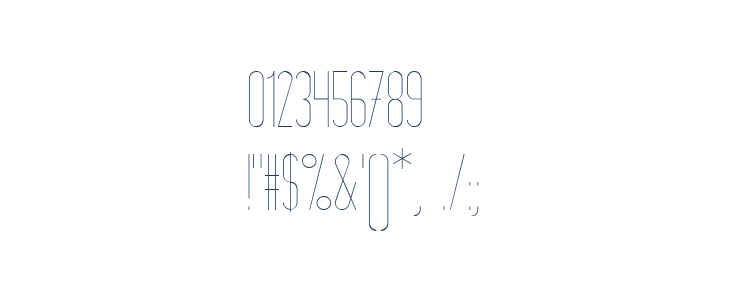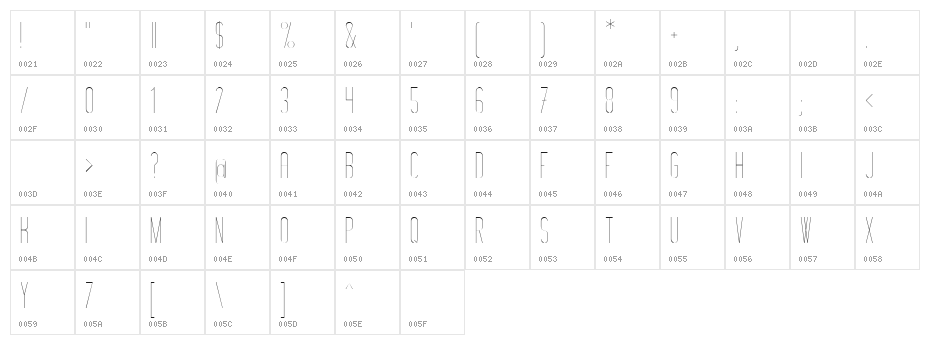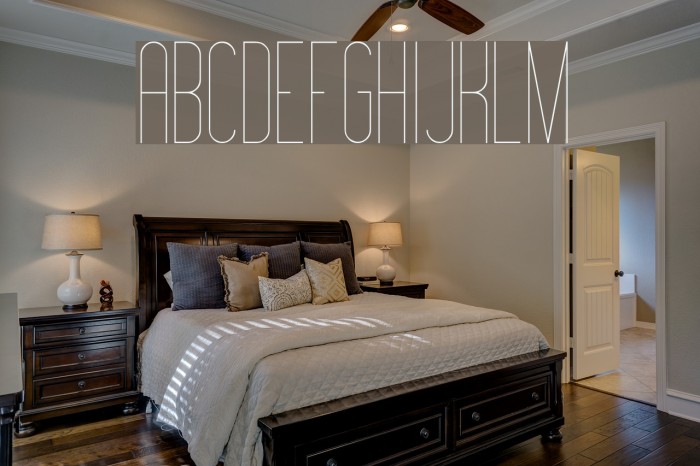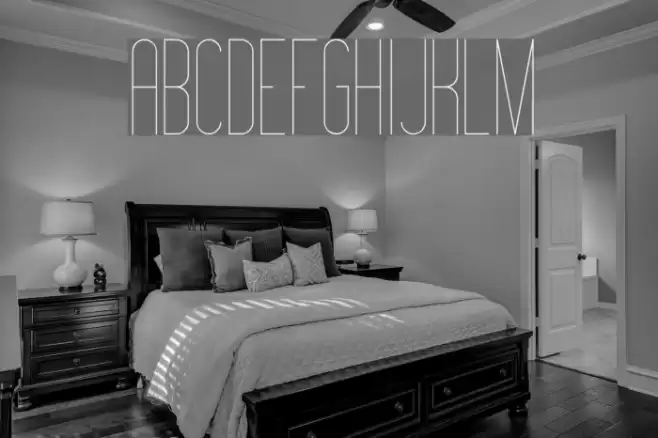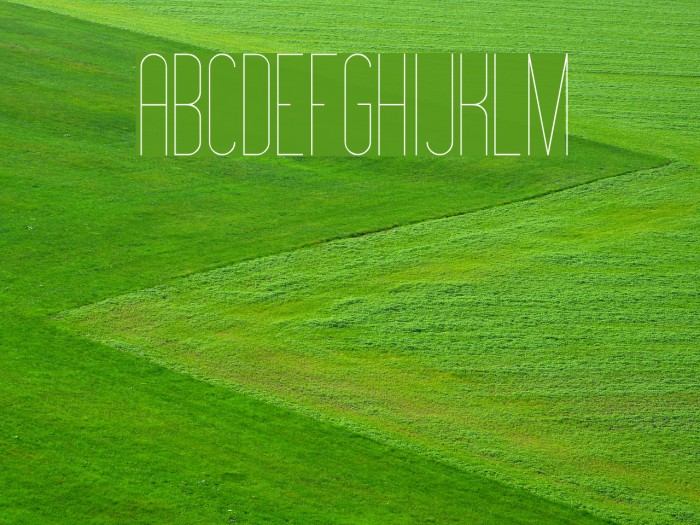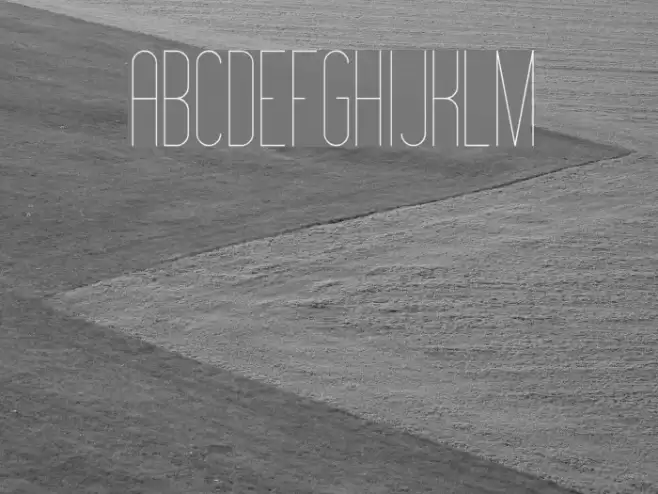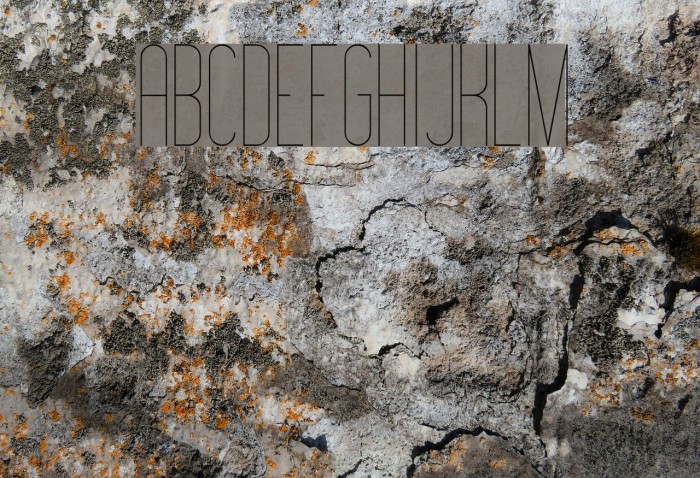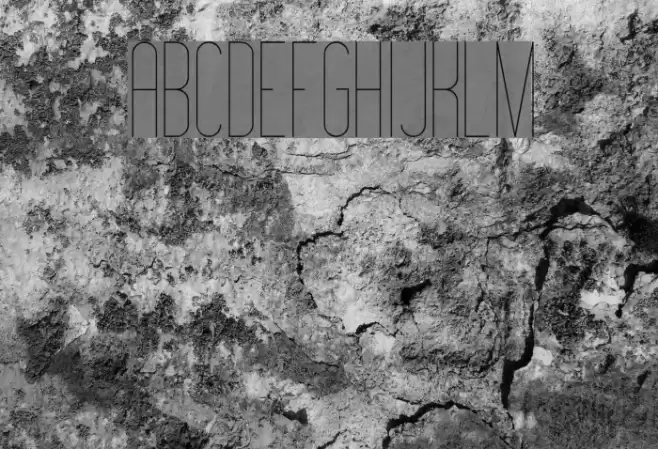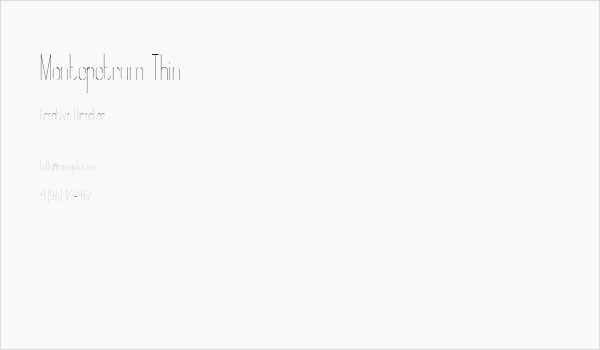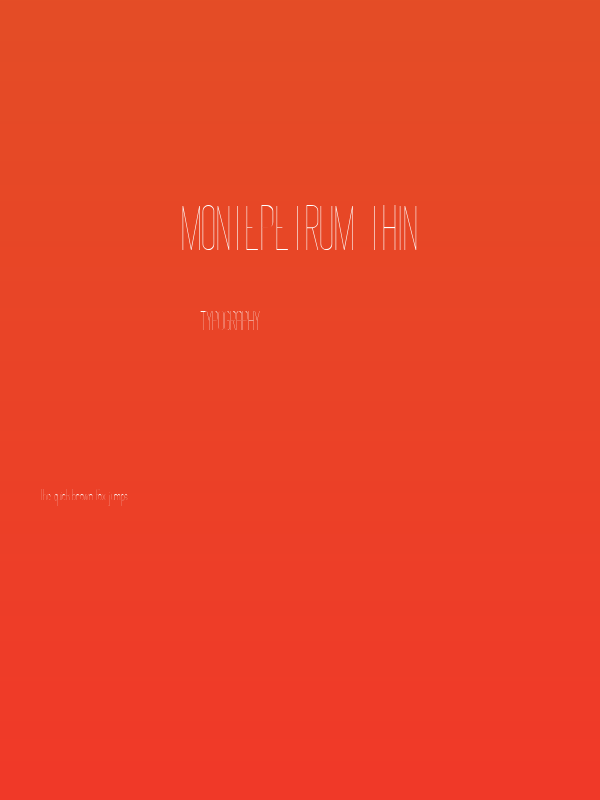
Montepetrum Thin Font
Montepetrum Thin Description
This font features an ultra-thin, elegant design with a modern and minimalist aesthetic. The characters are tall and narrow, with a consistent stroke width that gives it a sleek and sophisticated appearance. The uppercase letters are slightly taller than the lowercase, maintaining a uniform height across the board. The numerals and special characters are designed to match the overall thin and elongated style, ensuring a cohesive look. The font's clean lines and open spacing make it highly legible, while its refined style adds a touch of elegance to any design.
| Proposed Projects | Ideal for fashion magazines, luxury branding, minimalist posters, and elegant invitations. |